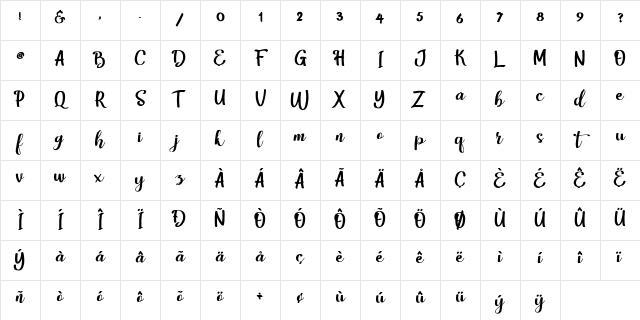
harley harley
Style: harley
Foundry: Suandana I Pande Made
Designer: Suandana I Pande Made
Design Context for harley
harley is a composed and adaptable typeface that performs quietly and consistently across a wide range of design contexts.
Who designed the harley harley font?